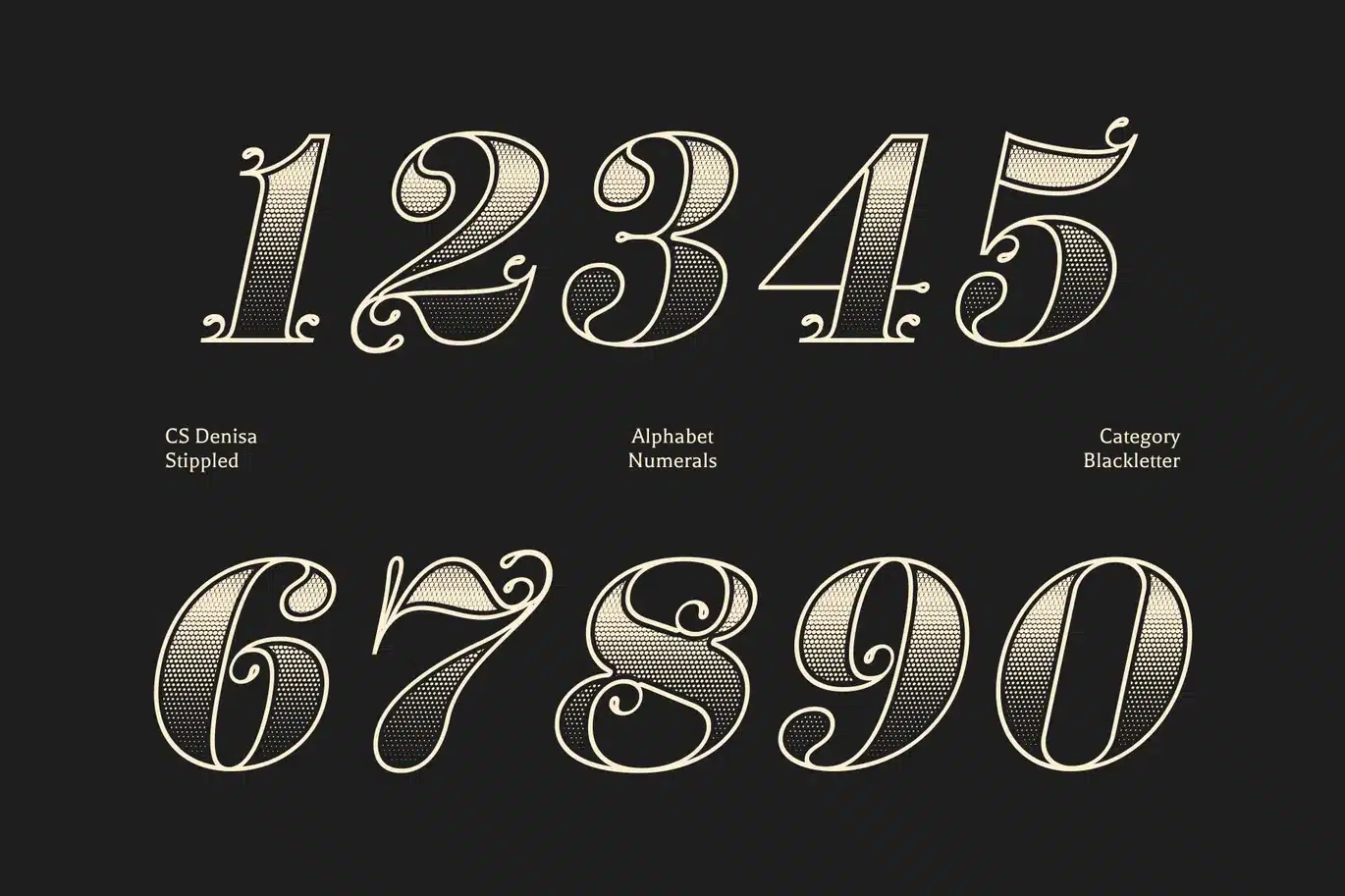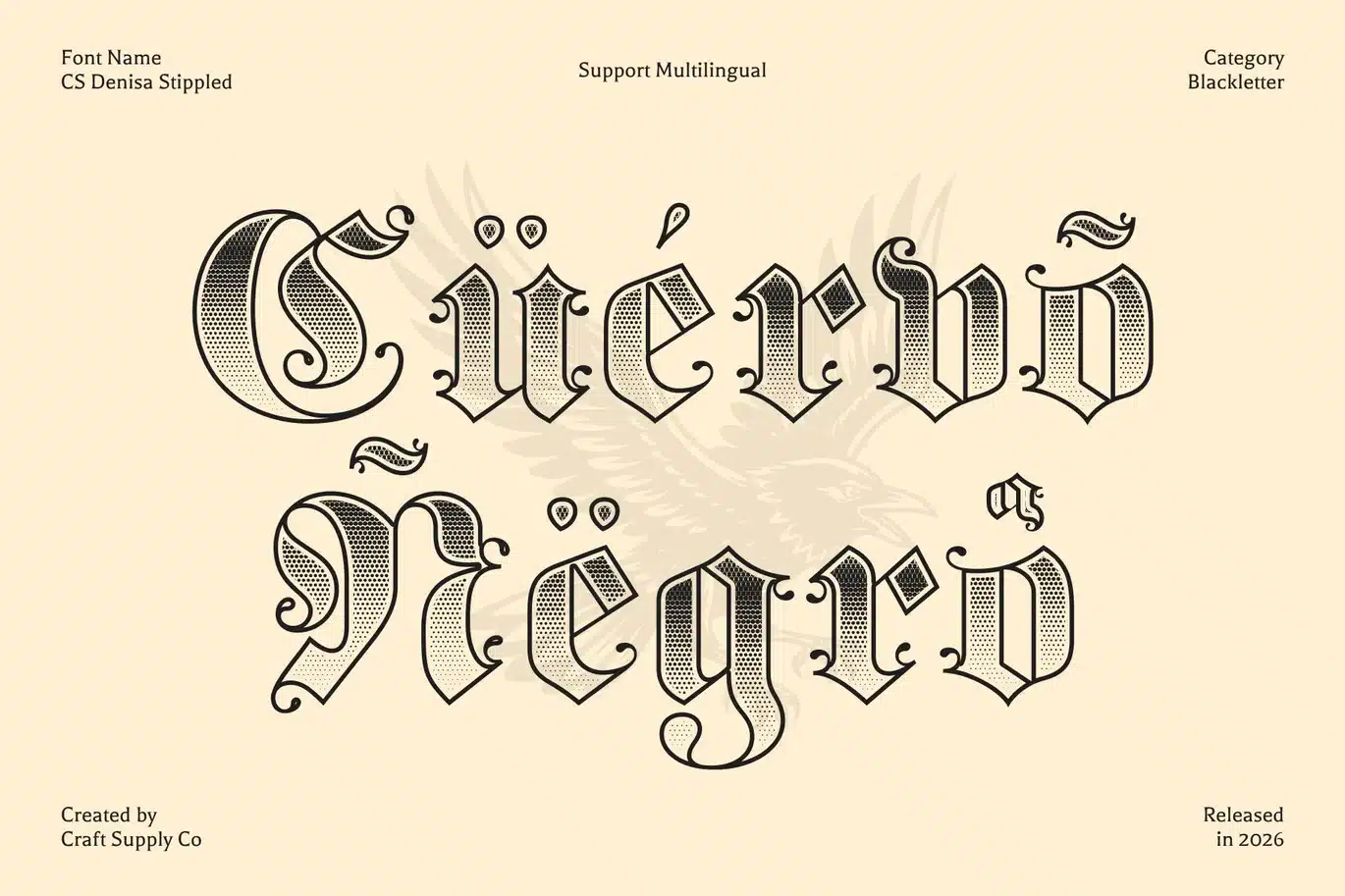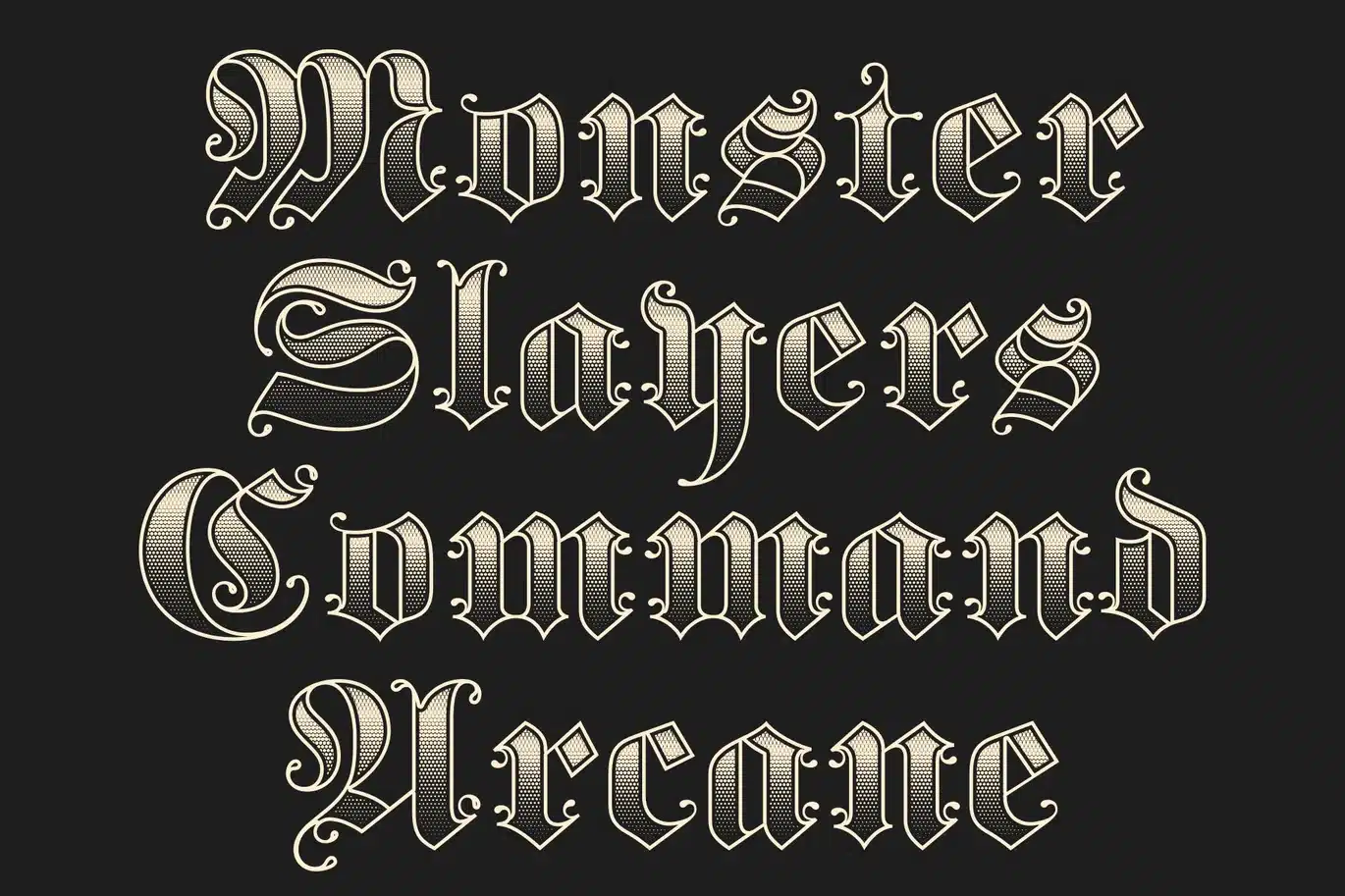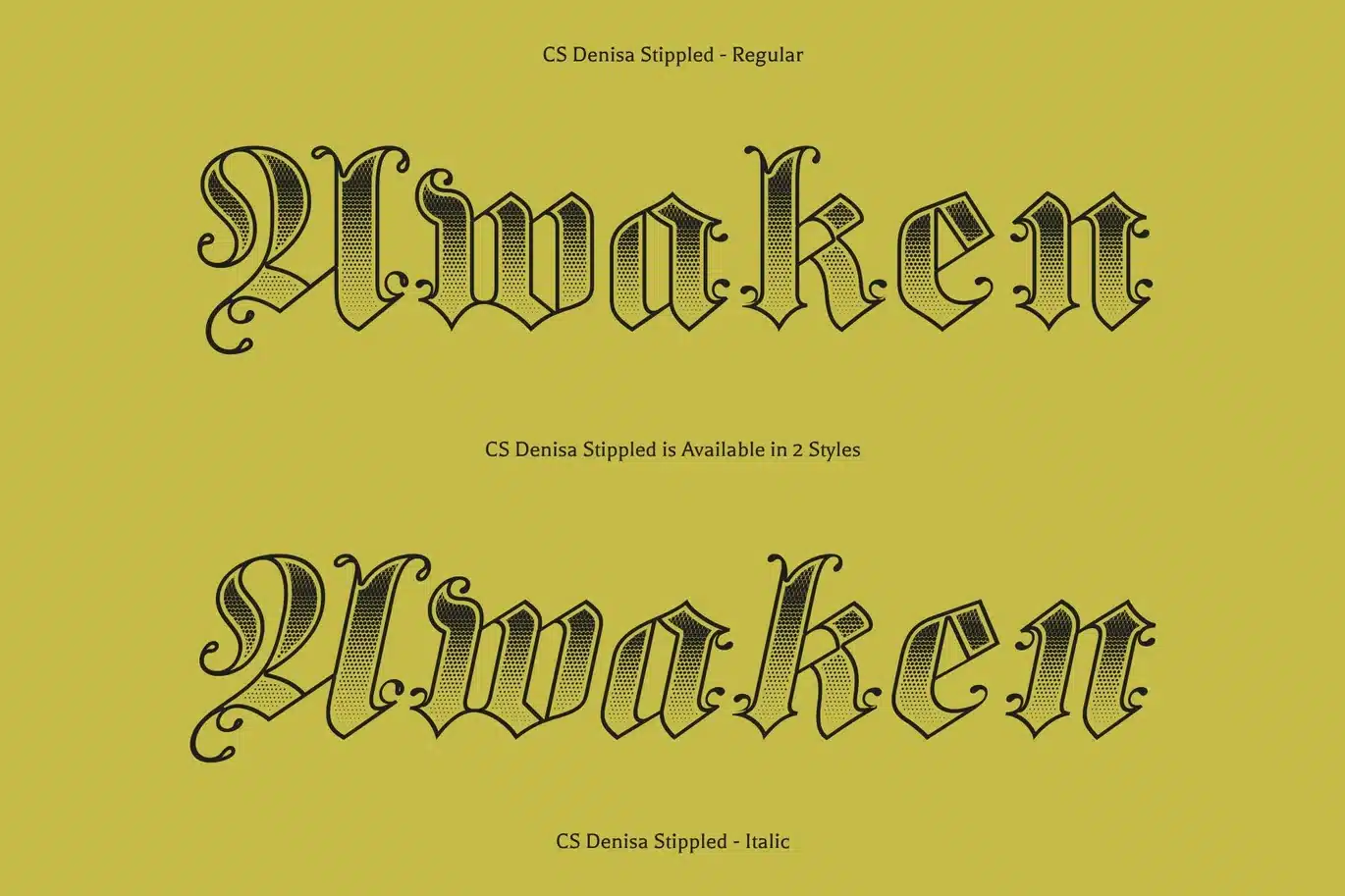
Denisa Stippled Font
CS Denisa Stippled – Bold Blackletter Fraktur Font with Textured Gothic Power
Timeless Gothic Elegance with Stippled Depth
This is a bold blackletter fraktur display font that merges traditional Gothic aesthetics with a striking modern presence. Its sharp angles, dramatic strokes, and strong contrasts embody the authority and artistry of historical lettering. Enhanced with a stippled texture, the font gains a subtle dotted surface that adds depth and a handcrafted engraved feel, reinforcing its rich historical character.
Intricate Fraktur Letterforms
The design of this font reflects the intricate beauty of classic fraktur typography. Angular forms, decorative strokes, and bold structure create a dramatic and visually commanding appearance. The stippled effect enriches these ornate shapes with delicate texture, adding visual complexity while preserving the bold readability of the design.
Powerful and Authoritative Character
With its bold weight and Gothic roots, conveys strength, prestige, and cultural depth. The combination of historical ornamentation and textured detailing gives the font a powerful presence that feels both traditional and artistically expressive.
Perfect for Heritage and Statement Designs
This is ideal for logos, posters, editorial titles, craft beer labels, wedding invitations, and heritage branding. By blending classic fraktur structure with a stippled finish, the font delivers a bold typographic voice that celebrates history while remaining visually compelling for modern design projects.